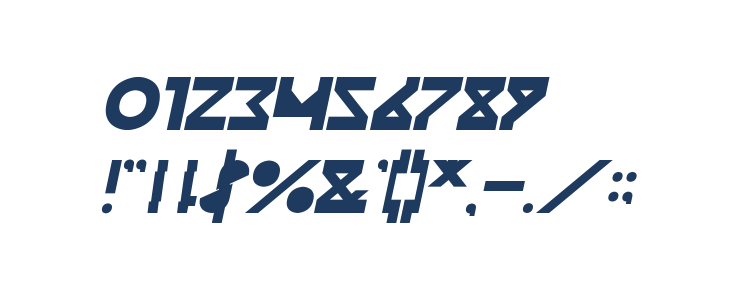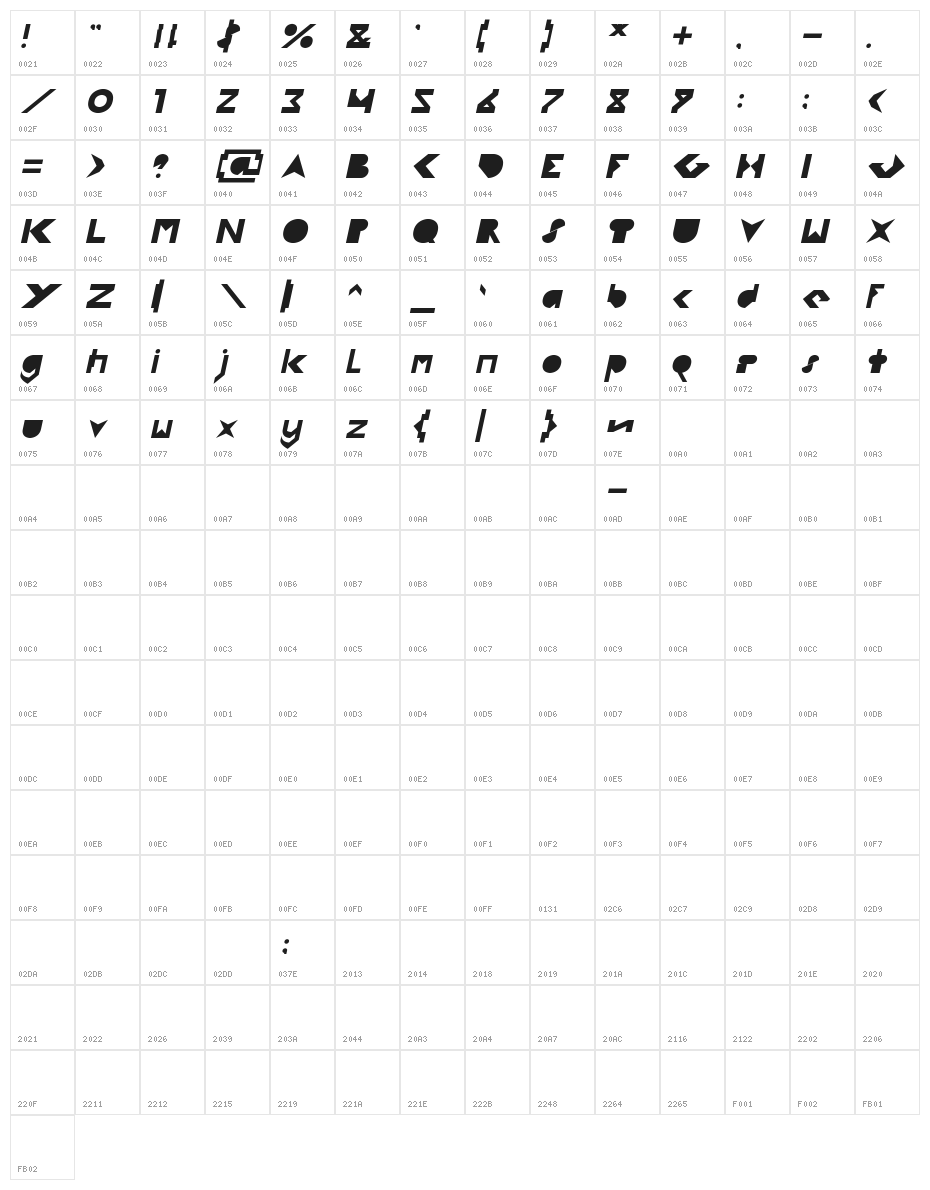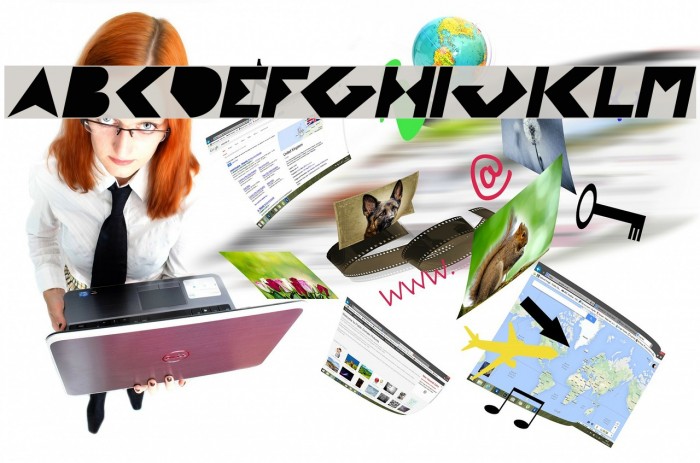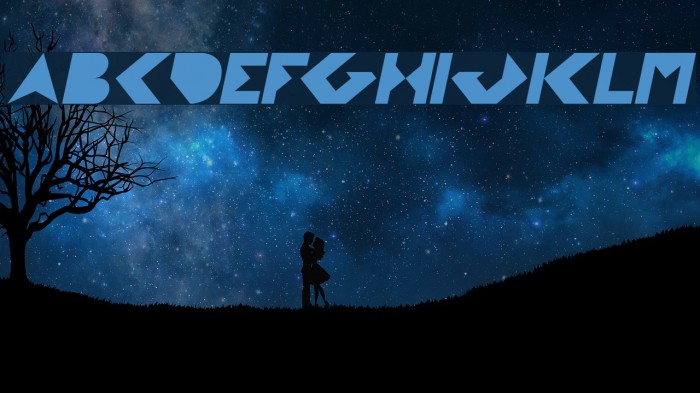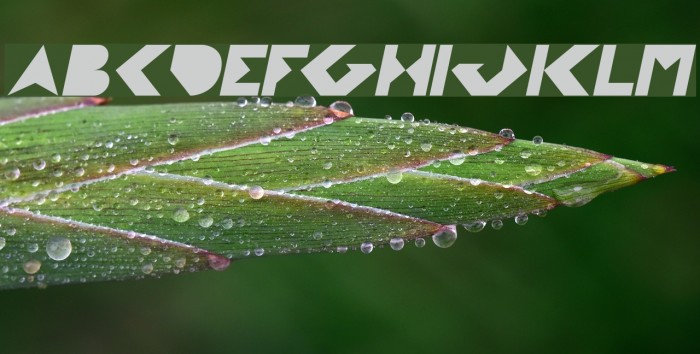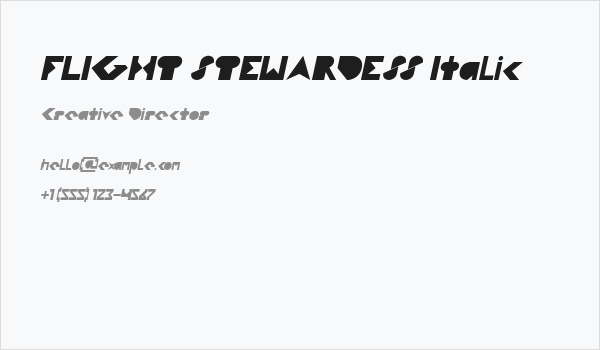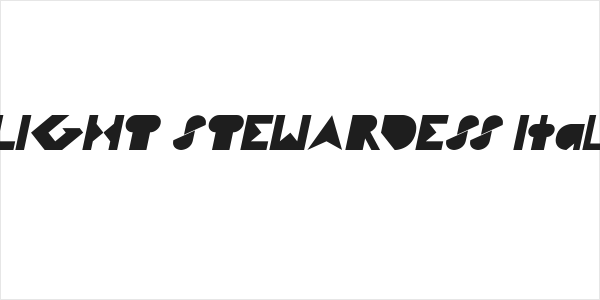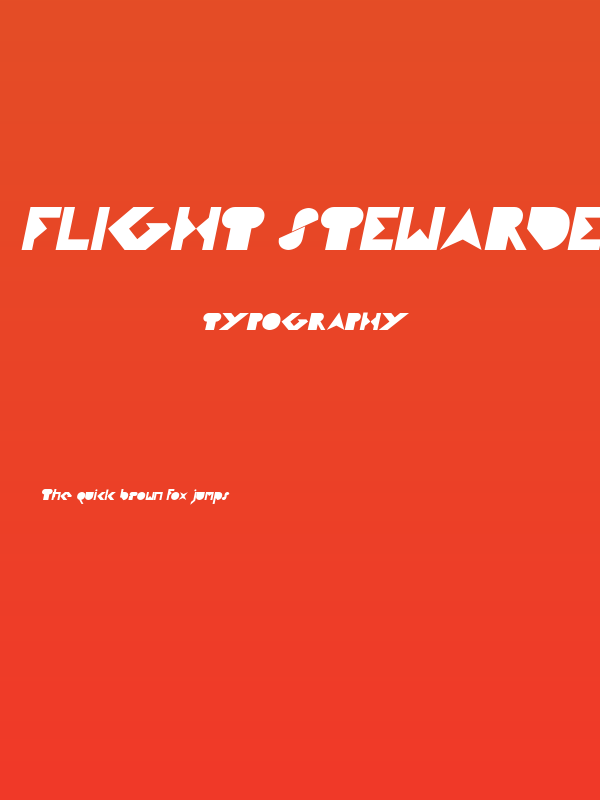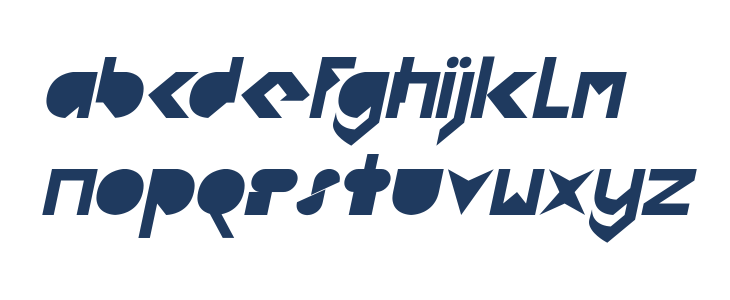
FLIGHT STEWARDESS Italic Font
FLIGHT STEWARDESS Italic Description
This font features a bold and dynamic style with sharp, angular lines and a distinct italic slant. The characters are designed with a futuristic and geometric aesthetic, giving them a unique and edgy appearance. The uppercase and lowercase letters maintain a consistent style, with some characters incorporating unique cuts and angles that enhance their modern look. The numerals and special characters follow the same design principles, ensuring a cohesive appearance across all glyphs. This font is ideal for projects that require a strong visual impact and a contemporary feel.
| Proposed Projects | Ideal for sci-fi themed designs, modern branding, video game titles, and dynamic posters. |